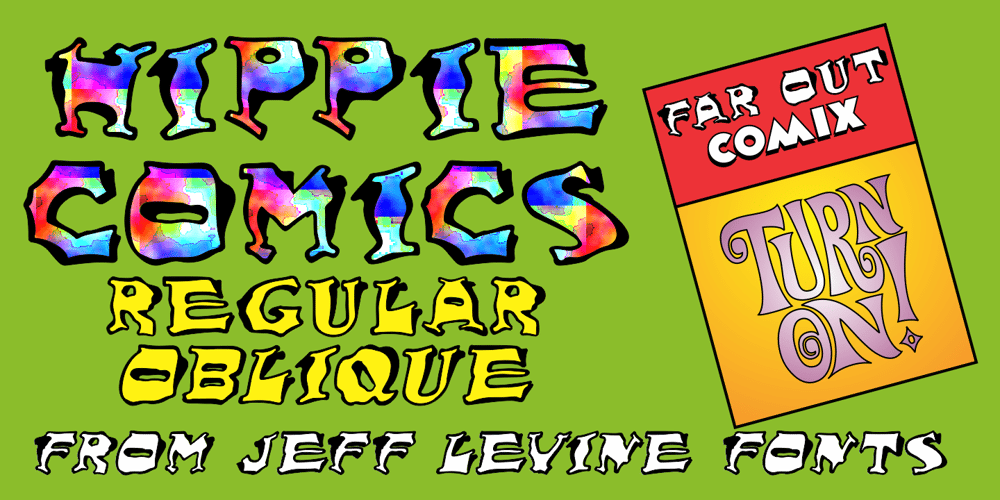
Hippie Comics JNL Font Family was designed by Jeff Levine and published by Jeff Levine. Hippie Comics JNL contains 2 styles and family package options. In the 1920 edition of “How to Paint Signs and Sho’ Cards” by E. C. Matthews is an example of what is termed “poster lettering” that is so free form and unusual it borders on the eccentric.Resembling lettering more commonly found in 1960s “underground comics” of the Hippie generation rather than of the Art Nouveau period, it oddly enough works well in both styles.This novelty typeface is now available as Hippie Comics JNL in both regular and oblique versions.